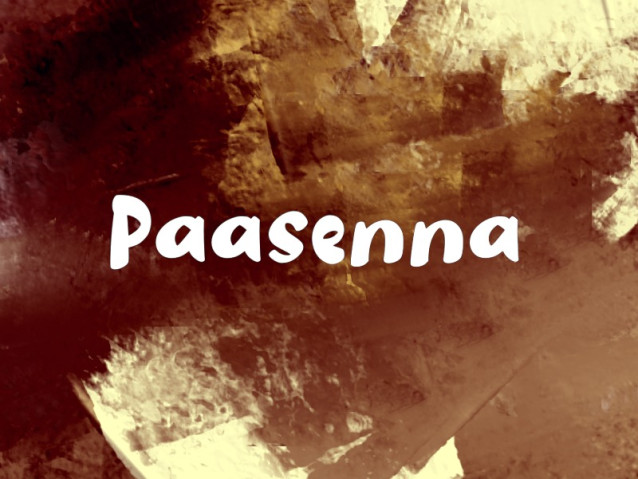
Paasenna Font
Paasenna Font is a simple and modern display font suitable for quotes, logos, headings, titles, and many more. Use it on any of your creative projects, and your designs will become outstanding!